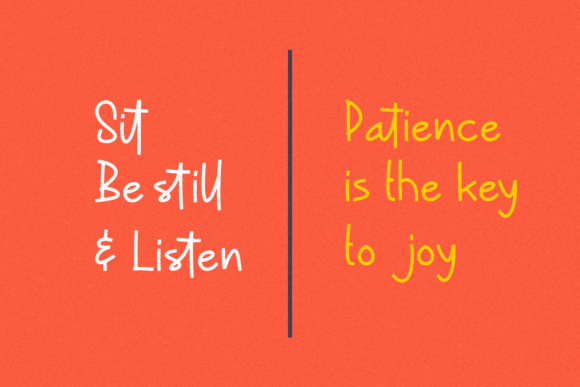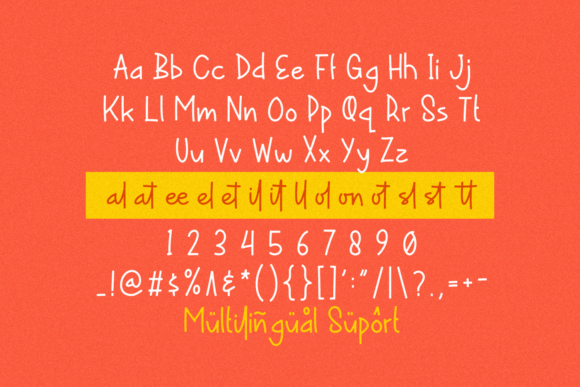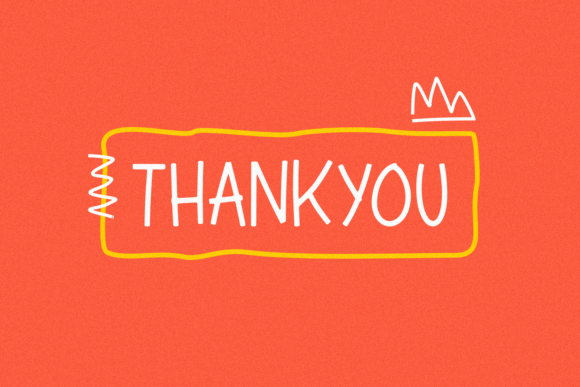
Introduction to Potato Crisp Font
As a designer, have you ever been browsing through a vintage market, and a beautiful handwritten sign catches your eye? The rustic charm, the elegance, and the uniqueness of the script all blend together to create an instant visual appeal. It’s moments like these that inspire us to create something truly special, and that’s exactly what the Potato Crisp Font is all about.
With its classic, farmhouse, and boho vibes, the Potato Crisp Font is a game-changer for any creative project. Whether you’re working on an event, wedding project, fashion, or apparel project, this high-quality font is sure to add that extra touch of femininity and sophistication. Plus, with its transparent background, you can easily layer it over other design elements to create a stunning visual effect.
Key Features of Potato Crisp Font
- Unique, hand-drawn design with a modern twist, perfect for creative projects.
- Includes uppercase and lowercase letters, numbers, and special characters for comprehensive use.
- Perfect for designs that require a fun, playful, and eye-catching aesthetic, such as logos, posters, and social media graphics.
Honest Review: Potato Crisp Font
I recently had the chance to dive into the world of the Potato Crisp Font, a free download that’s been making waves in the design community. As a designer, I’m always on the lookout for high-quality fonts that can elevate my creative projects. In this review, I’ll share my honest thoughts on what works well and what doesn’t.
- The Potato Crisp Font is incredibly versatile, making it perfect for a wide range of design projects.
- The font’s transparent background allows for seamless integration with any design element.
- The high-quality design ensures that the font looks crisp and clean, even at larger font sizes.
- The font may not be suitable for designs that require a lot of text overlay, as the transparent background can make it difficult to read.
- The font’s style may not be to everyone’s taste, so it’s essential to use it judiciously in your designs.
Overall, I’m impressed with the Potato Crisp Font and its potential as a design resource. While it may have some limitations, its versatility and high-quality design make it a valuable addition to any designer’s toolkit.
Tips for Getting the Most Out of Potato Crisp Font
To get the most out of the Potato Crisp Font, use it in combination with other high-quality design resources, such as images and graphics. Experiment with different font sizes, colors, and styles to create a unique and eye-catching design.
Common Use Cases for Potato Crisp Font
The Potato Crisp Font is ideal for use in creative projects, such as logo designs, social media graphics, and advertising materials. Its transparent background makes it easy to layer over images and graphics, allowing for a high-quality design effect.